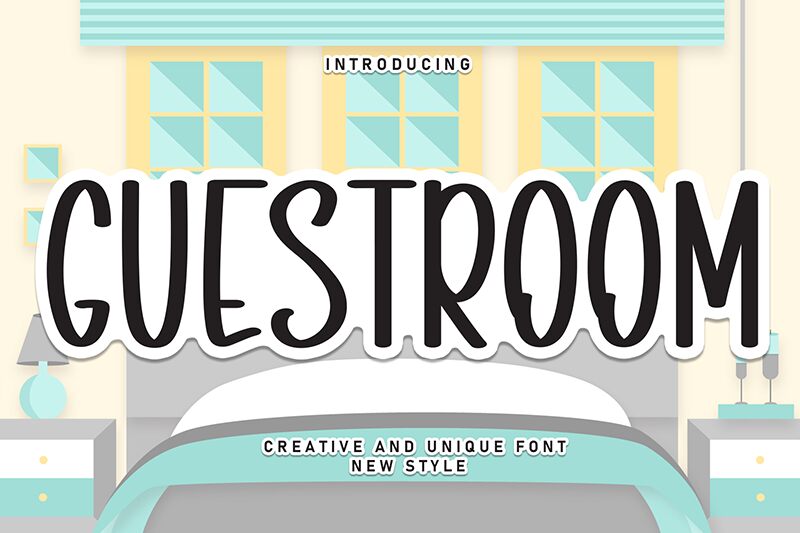
Guestroom
Guestroom font by Andi Moz is a condensed, handwritten typeface with a hand-drawn appearance that embodies casual elegance and an artistic vibe. Featuring its natural feel and irregular baseline, it’s the perfect font for those seeking authenticity and personal charm in their text works. This font is free to download and use in several fields both commercial or otherwise.
Guestroom applies contemporary elegance to branding projects, logo designs, title covers, magazines headlines, packaging design ideas, social media posters and banners, apparel print design ideas such as T-shirts or hoodies designs.